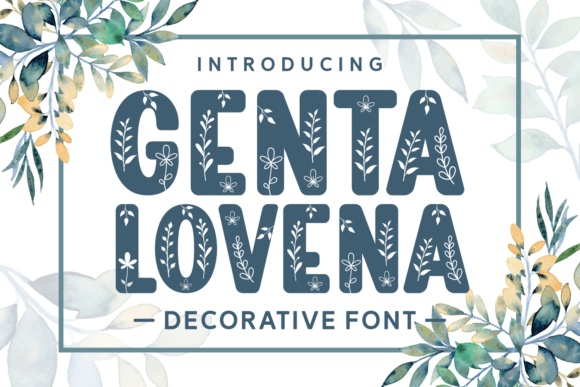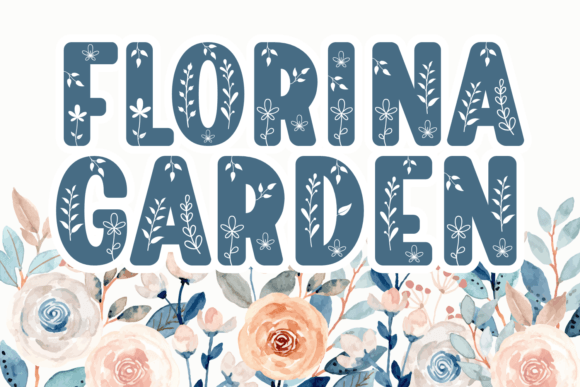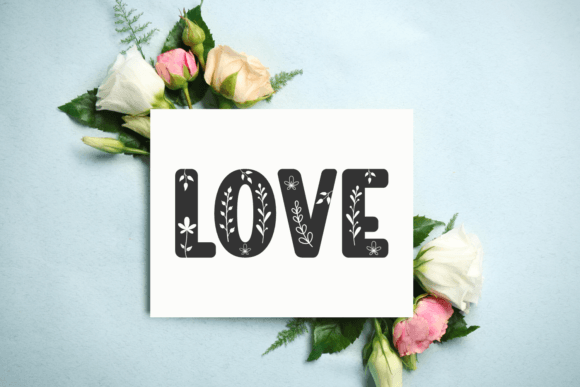
Genta Lovena Font: Botanical Decorative Font for Cute DIY & Craft Projects
About the Genta Lovena Font
Experience the unique personality of Genta Lovena Font, a font designed for impact. Genta Lovena is a charming botanical-themed decorative font. Create stunning designs with this lovely floral font! These embellished characters are suitable for branding projects, fabric prints, crafts, digital typography, and more.
Genta Lovena’s charming botanical theme makes it ideal for projects requiring a touch of delicate elegance. It excels in headlines, short text blocks on invitations or packaging, and as an accent font in branding materials for businesses related to nature, beauty, or artisanal goods. Avoid using it for body text or lengthy paragraphs; its decorative nature compromises readability at smaller sizes.
Its soft, friendly personality pairs well with clean sans-serif fonts like Lato or Open Sans for a balanced contrast, or with a classic serif like Garamond or Playfair Display for a more traditional feel. A geometric sans-serif could add a modern edge, while a script font could enhance its romantic appeal, depending on the desired mood.
Consider Genta Lovena for projects needing a touch of whimsical sophistication. It’s not suitable for interfaces or situations demanding high readability. For best results, use it sparingly as a decorative element, letting its botanical details add a subtle yet impactful charm.